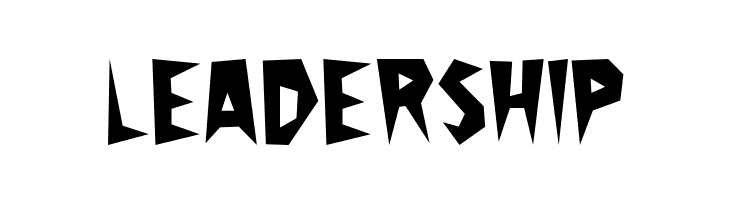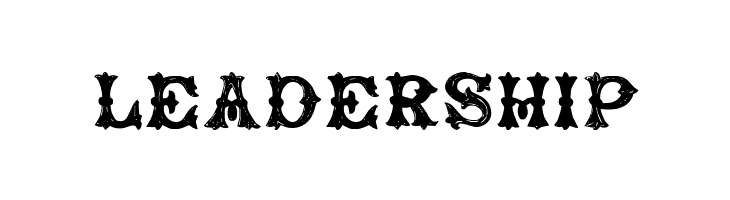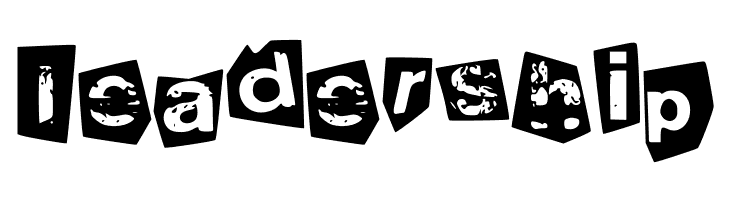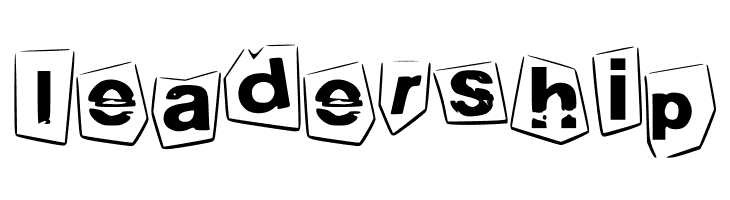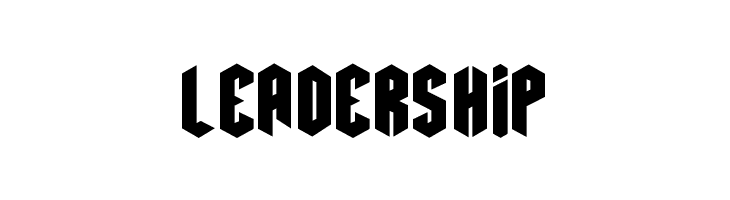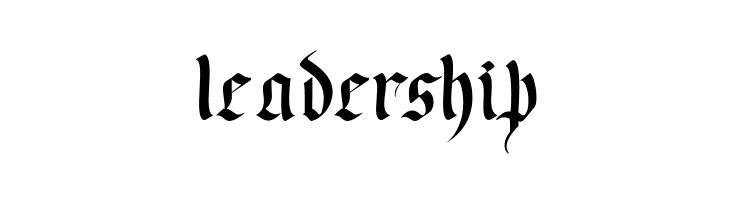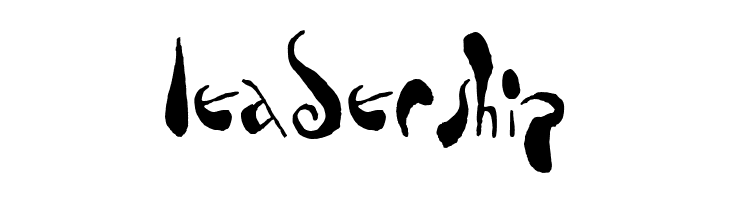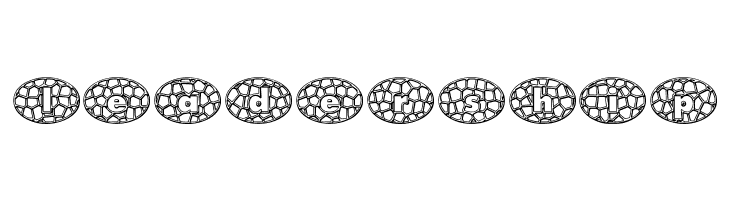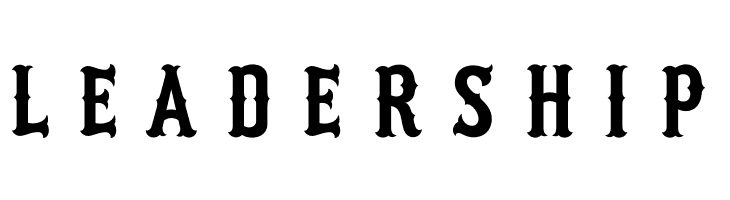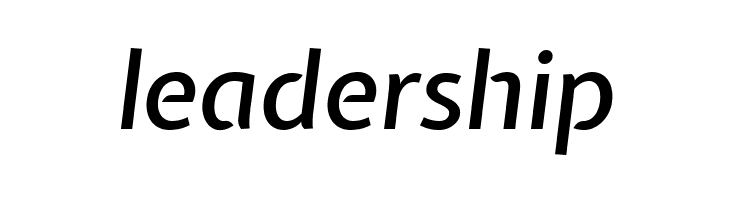
A dynamic, italicized font with sharp, angular strokes and a hand-drawn feel.
A bold, dynamic font with sharp, angular strokes and a hand-drawn feel.
A bold, jagged font with sharp, angular shapes for a dynamic look.
A decorative font with a woven, textured design and bold characters.
A bold, geometric font with sharp angles and a modern, edgy style.
A bold, gothic blackletter font with intricate and ornate designs.
A dynamic, italicized font with sharp, angular strokes and a hand-drawn appearance.
A bold, dynamic font with sharp, angular edges and a hand-drawn quality.
An expressive, artistic font with bold, brush-like strokes and dynamic forms.
A modern, semi-bold sans-serif font with a clean and geometric style.
A bold, modern typeface with clean lines and geometric influences.
A modern, medium-weight sans-serif font with a clean and versatile style.
A modern, medium-weight italic sans-serif font with a sleek and dynamic style.
A modern, italic sans-serif font with dynamic and elegant styling.
A modern, semi-bold italic sans-serif font with a sleek and dynamic style.
A bold, italic, sans-serif font with a modern and dynamic style.
A bold, decorative font with unique fly motifs on each character.
A bold, playful, and energetic font with a hand-drawn, graffiti-like style.
A bold, playful handwritten font with a friendly and informal style.
A bold, hand-drawn font with a playful and energetic style.
A bold, modern font with tall, narrow characters and high contrast.
A bold, narrow font with a modern, art deco flair.